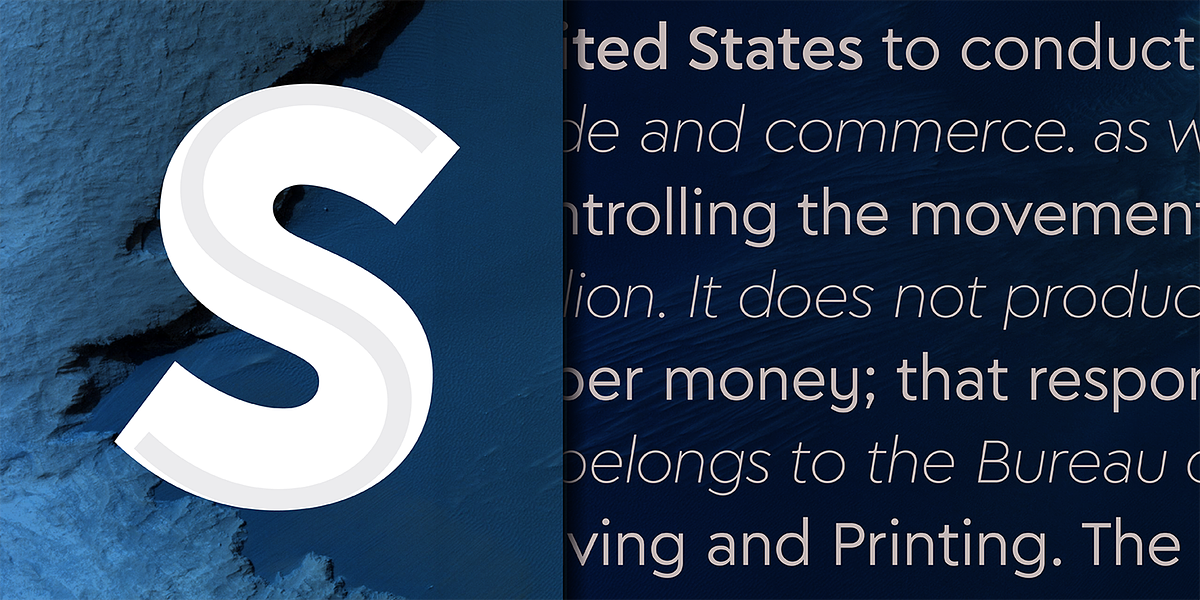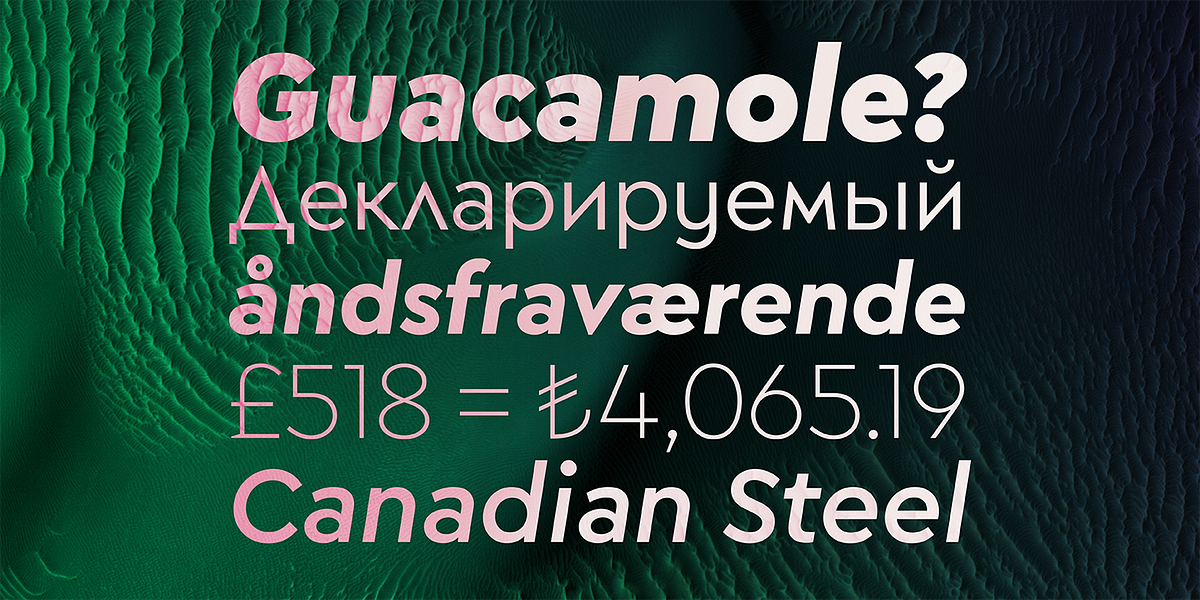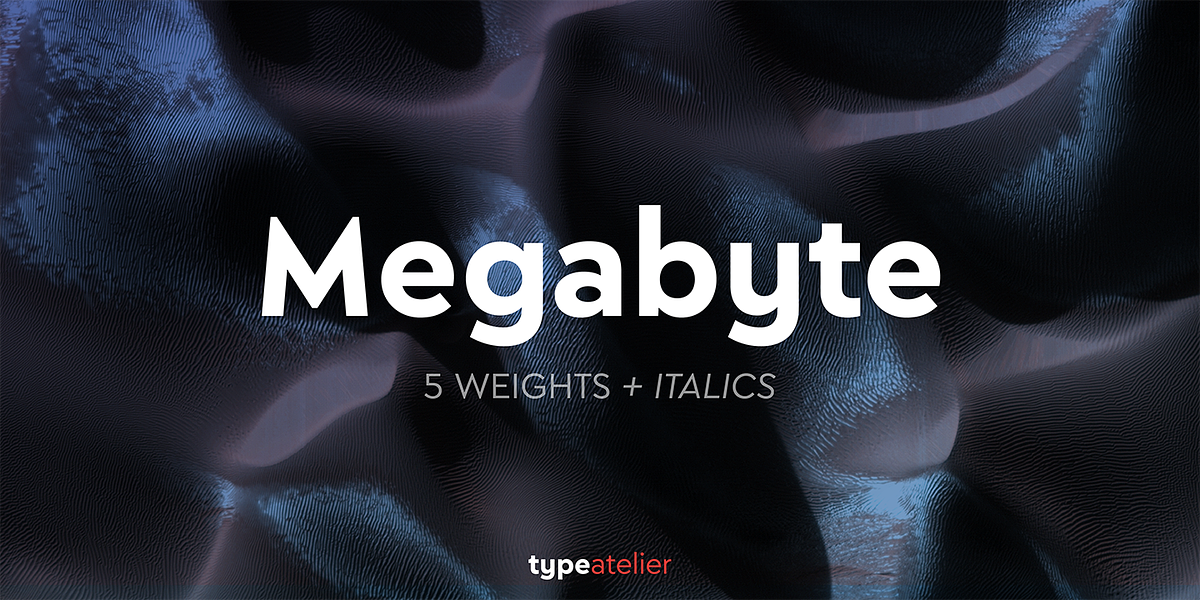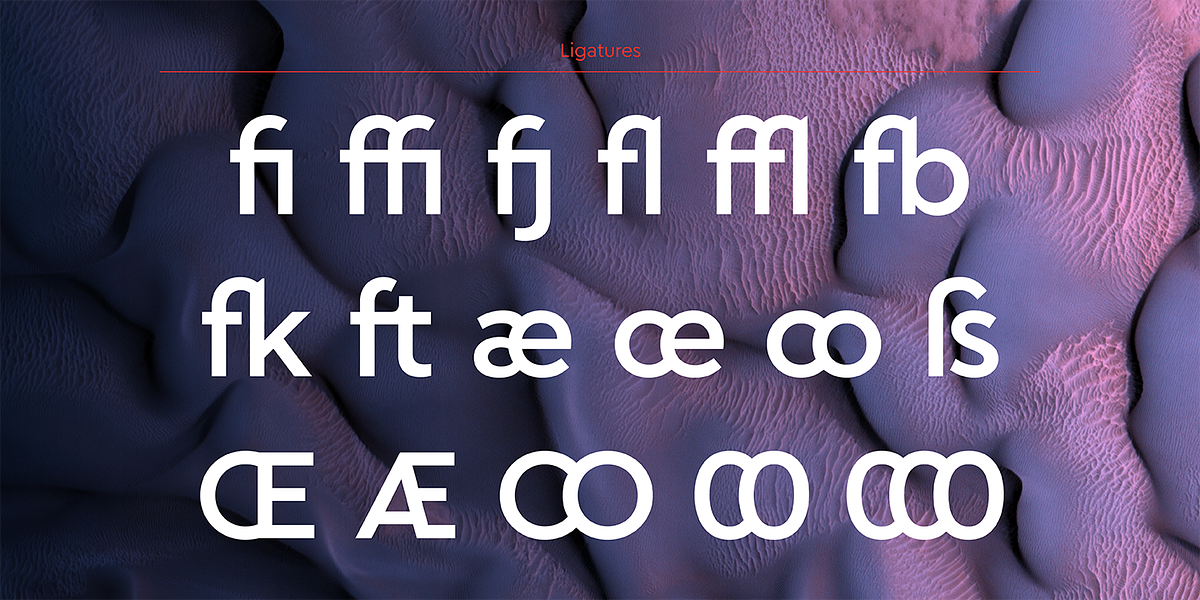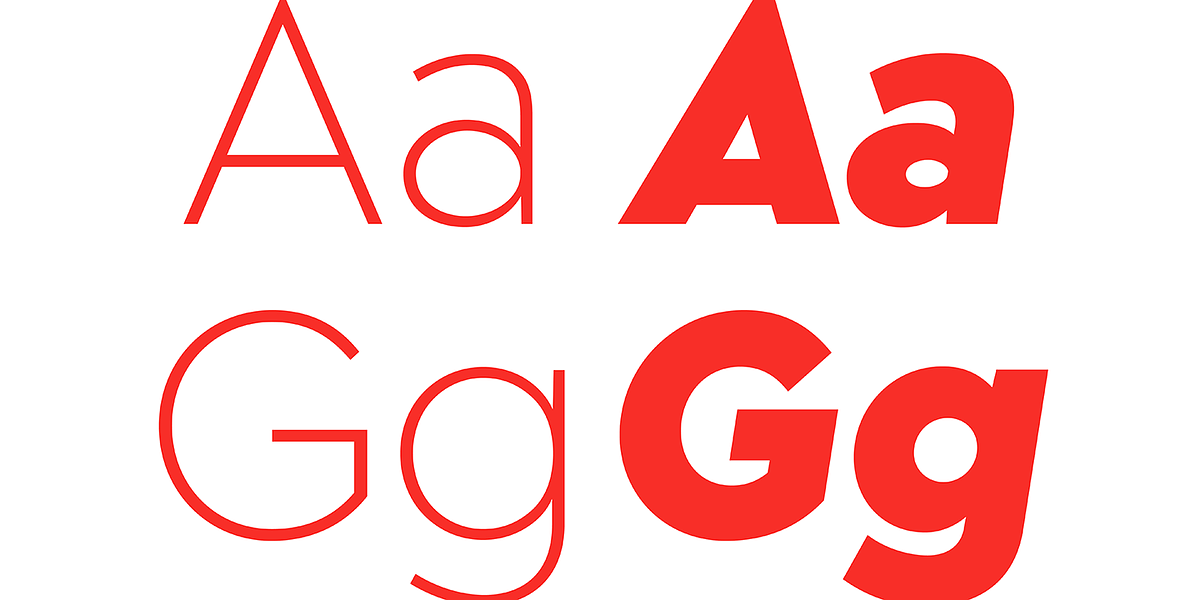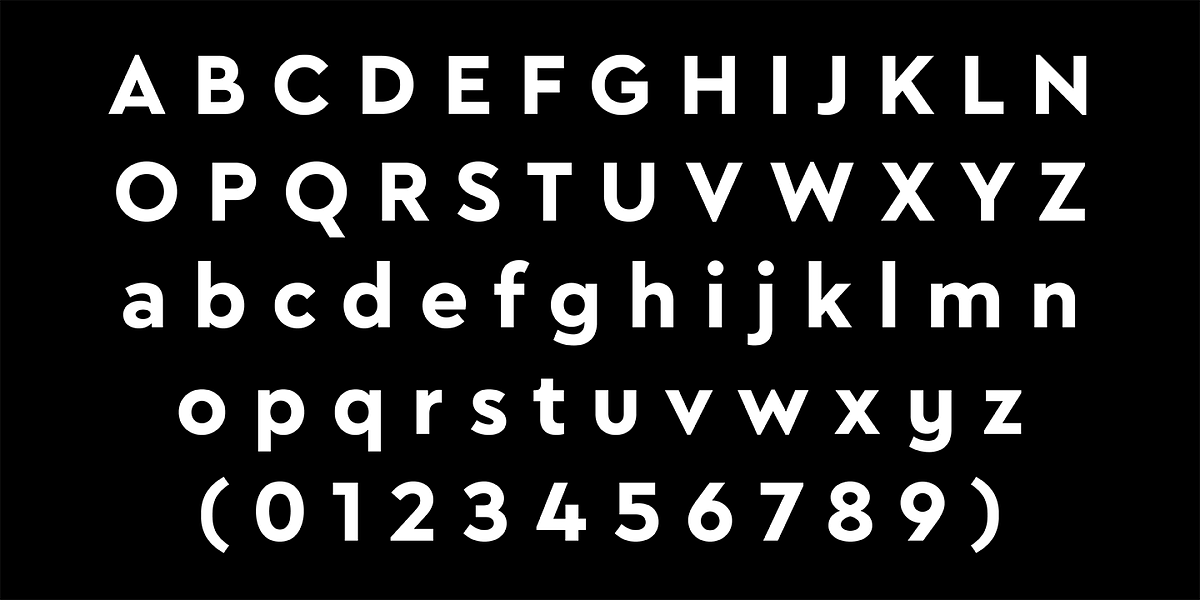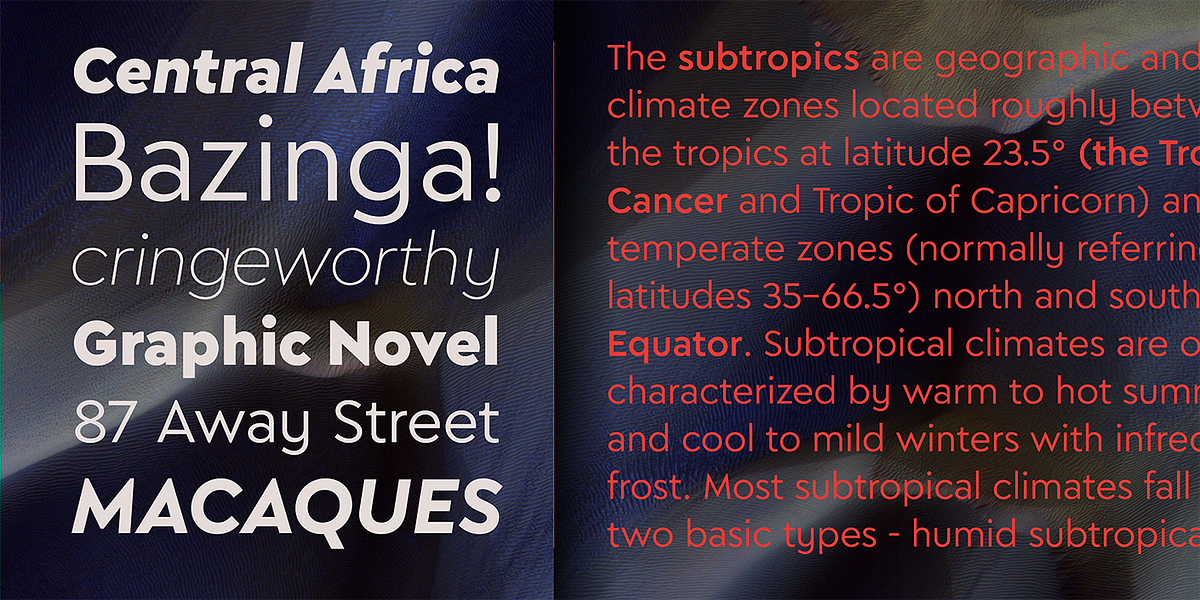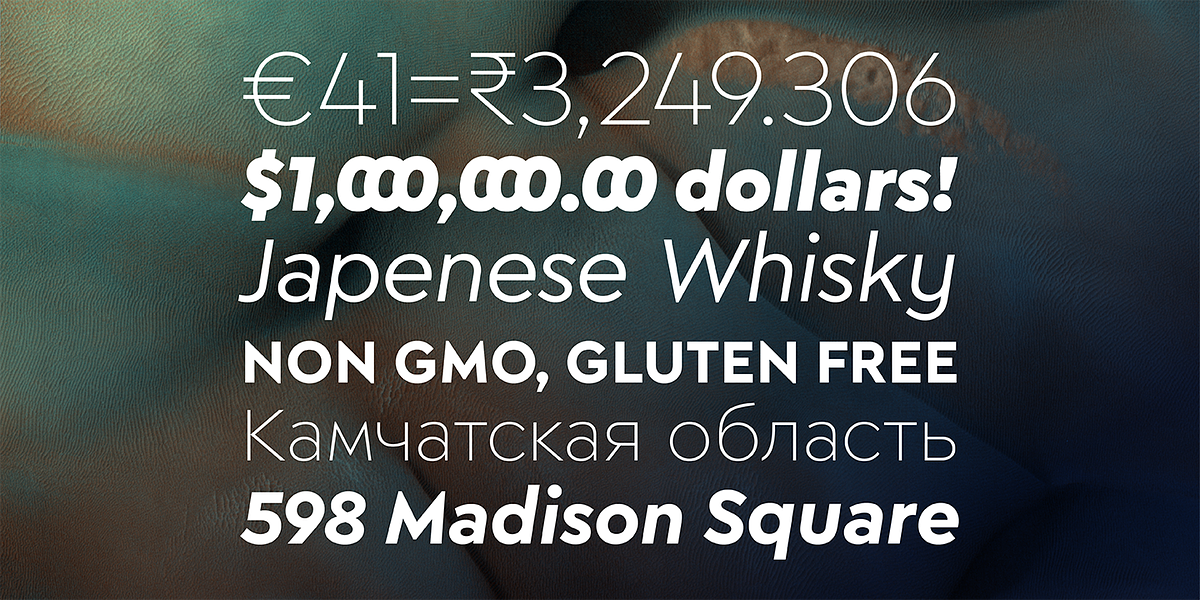
Megabyte
Megabyte is a modern sans serif typeface designed by Thomas Gillett with Erin McLaughlin contributing to the metrics and engineering. The font features a geometric foundation and minimal tapering, resulting in a clean and contemporary aesthetic. It offers a wide range of applications due to its versatility. Megabyte includes 10 weights from light to black, each with a corresponding italic style slanted at 9 degrees. The extensive OpenType feature set includes alternative forms, extended language support (including Cyrillic), ligatures, arrows, and various symbols.